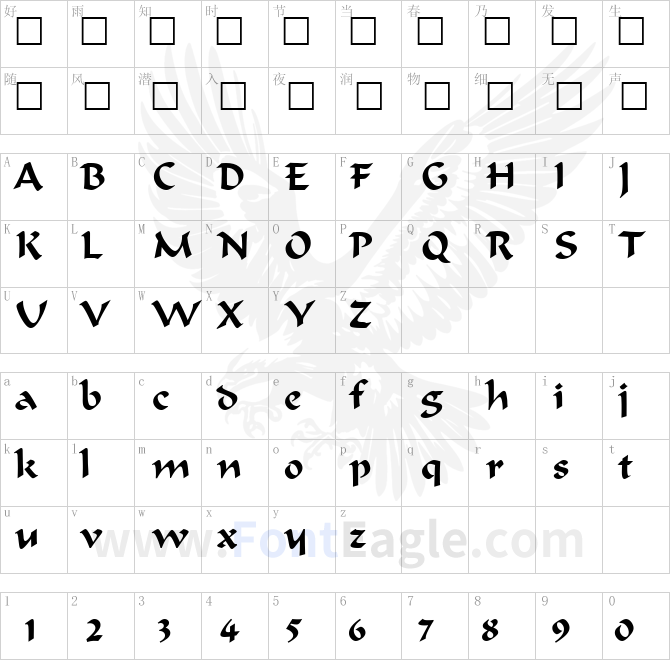
FERGUSON Regular.ttf Font Image
FERGUSON Regular.ttf Base Font Information
- Font name:FERGUSON
- Font Subfamily ID:Altsys Fontographer 3.5 FERGUSON Regular
- Font Full Name:FERGUSON Regular
- Postscript:FERGUSON Regular
FERGUSON Regular.ttf Characters Sample